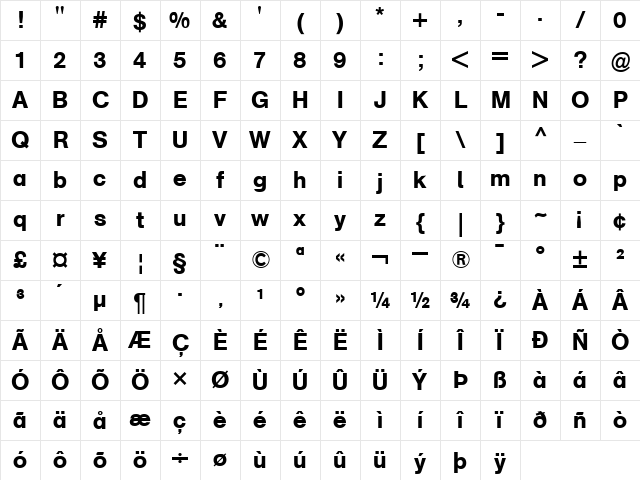
AG Schoolbook Bold Free Font
AG Schoolbook Bold
Design Context for AG Schoolbook
AG Schoolbook is a composed and adaptable typeface that performs quietly and consistently across a wide range of design contexts. Its bold stroke weight gives it real presence on the page.